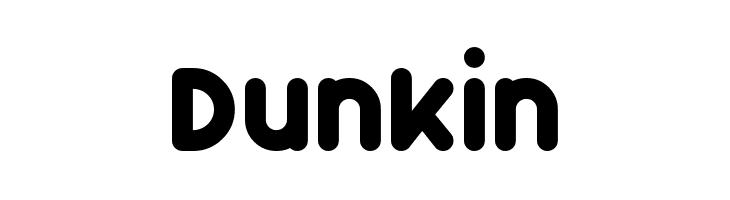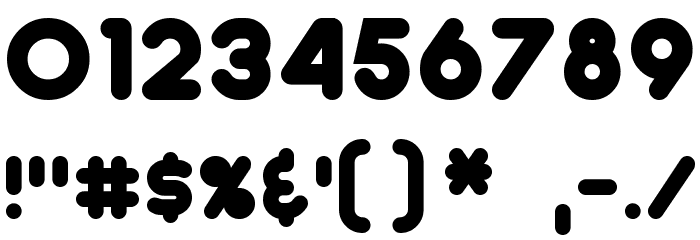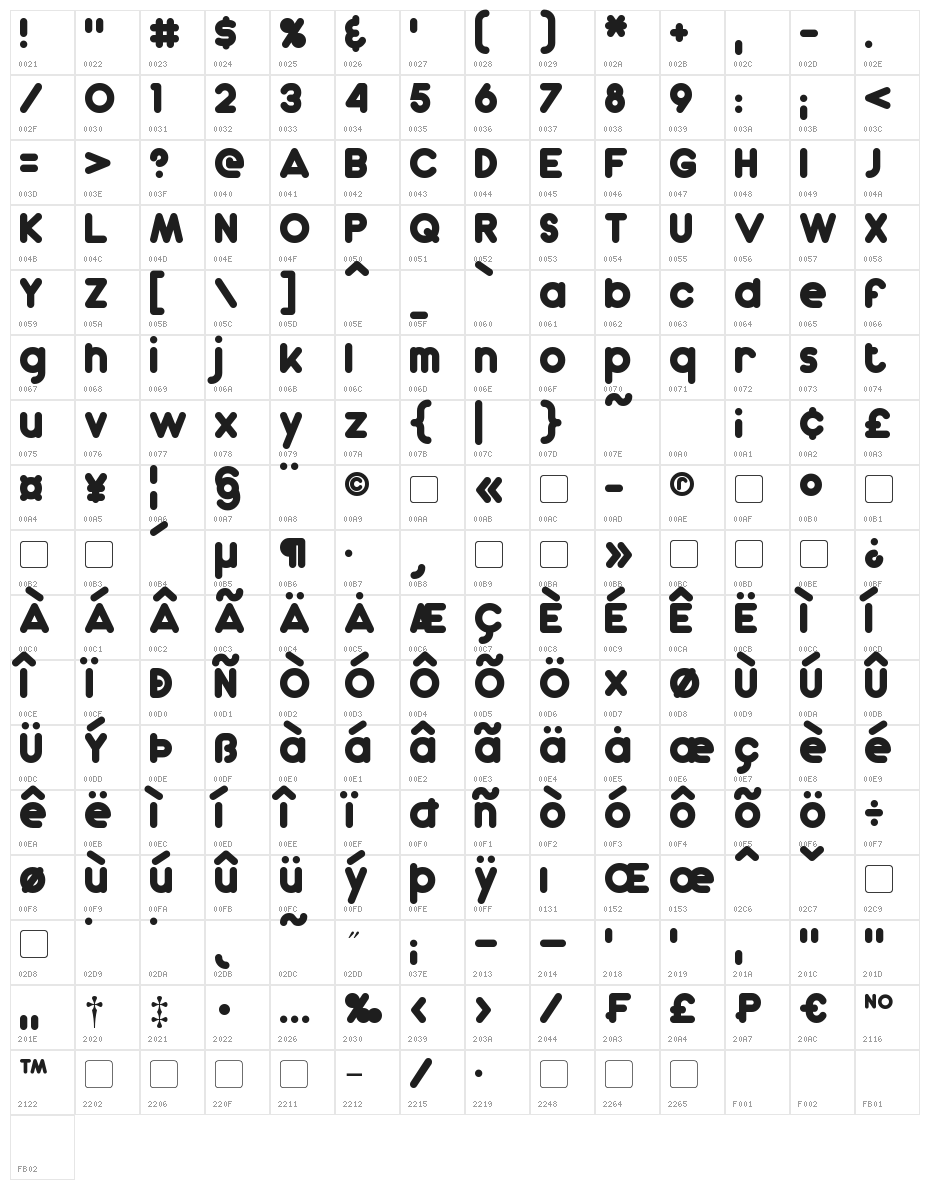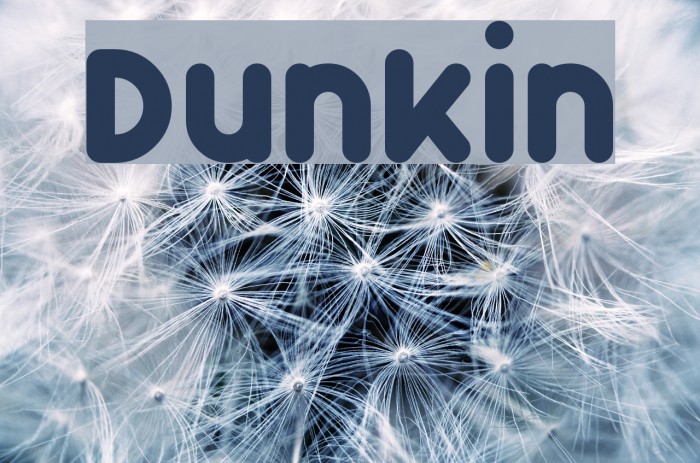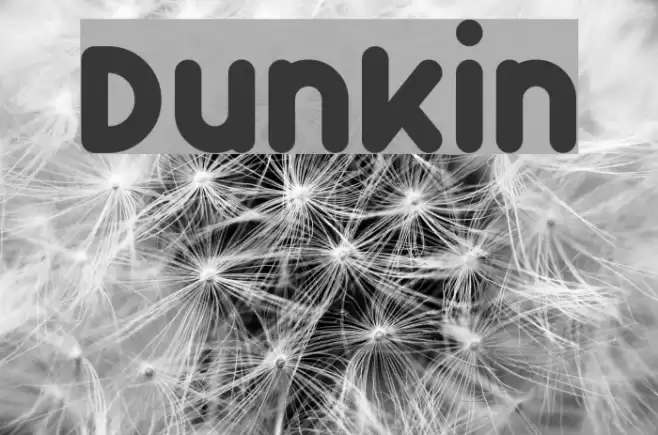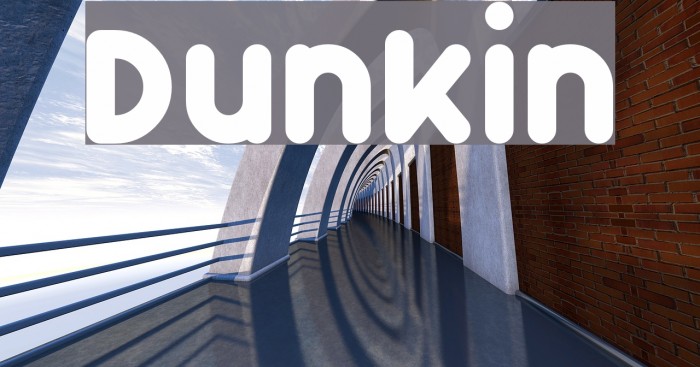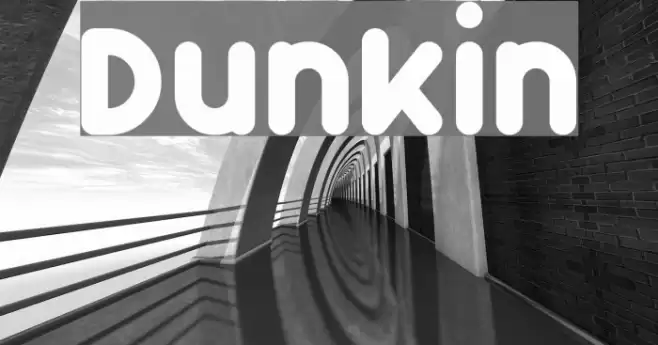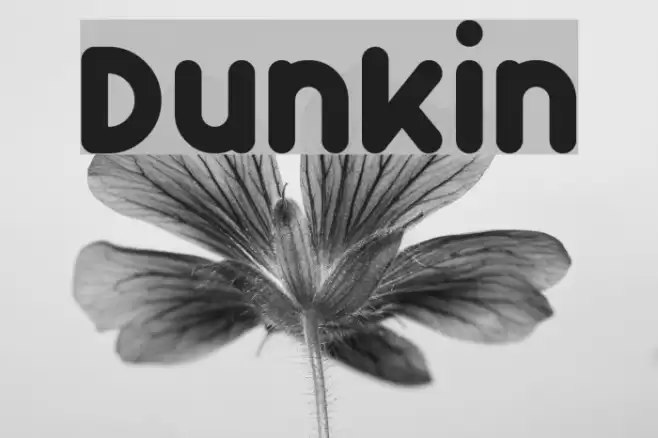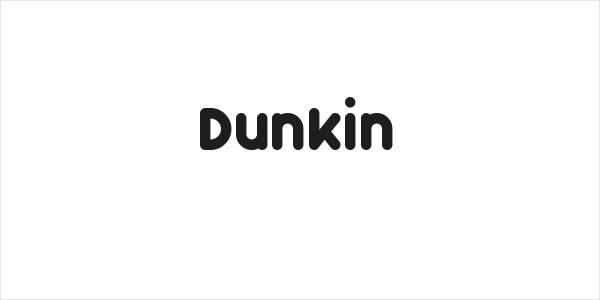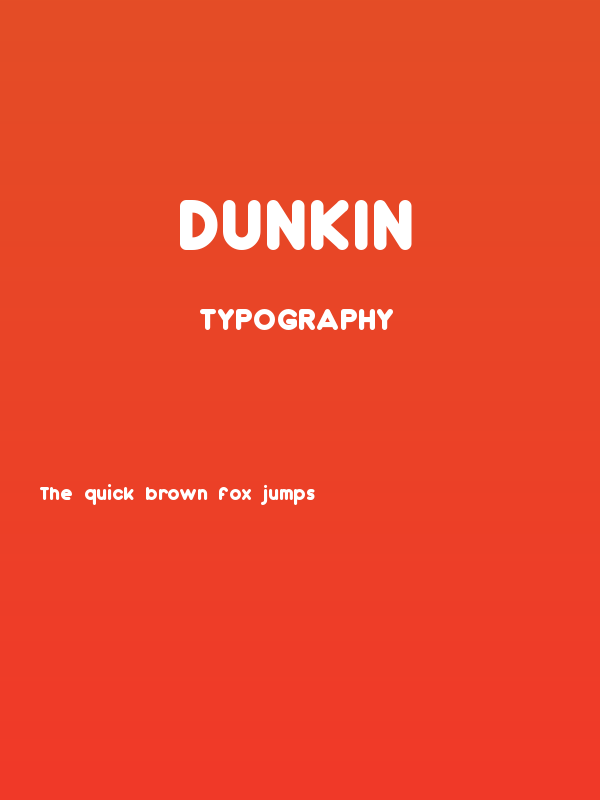
Dunkin Font
Dunkin Description
This font features bold, rounded characters that convey a friendly and approachable aesthetic. The letters are uniformly thick, with a consistent stroke width that gives the font a cohesive and modern look. The rounded edges soften the overall appearance, making it suitable for casual and playful designs. The numerals and special characters maintain the same rounded and bold style, ensuring uniformity across all text elements. This font's simplicity and clarity make it highly legible, even at smaller sizes, while its boldness ensures it stands out in larger formats.
| Proposed Projects | Ideal for branding, packaging, children's books, and playful advertising campaigns. |